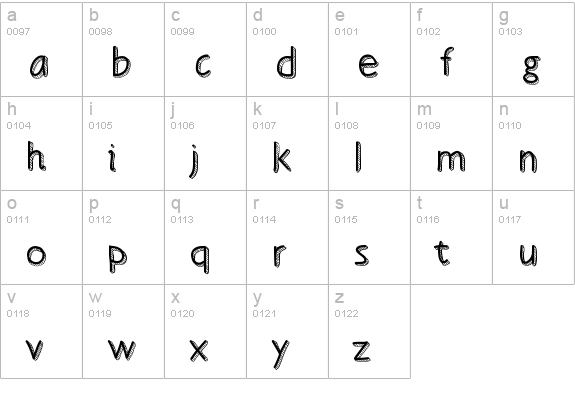
BestDayEver Font Details
Introducing BestDayEver, the font that will make every day feel like the best day ever! This whimsical and playful typeface is perfect for adding a touch of joy and excitement to any project. With its unique and eye-catching design, BestDayEver is sure to make your words pop off the page. But what makes BestDayEver even more special? It's completely free! That's right, you can freely download this amazing font at FontsMarket.com and start using it right away. Say goodbye to expensive font purchases and hello to the freedom of creativity. BestDayEver is ideal for a wide range of design projects, from greeting cards to posters, logos to social media graphics. Its friendly and approachable letterforms will instantly bring a smile to anyone who sees it. Whether you're designing for a children's book, a wedding invitation, or a fun branding project, BestDayEver will add that extra touch of magic. This font is not just visually stunning; it also offers a wide range of versatility. With multiple weights and styles to choose from, you can easily find the perfect variation for your specific needs. From light and airy to bold and impactful, BestDayEver has got you covered. But don't just take our word for it, give BestDayEver a try and see the magic for yourself. Download it for free at FontsMarket.com and let your creativity soar. BestDayEver is the font that will turn every day into the best day ever.